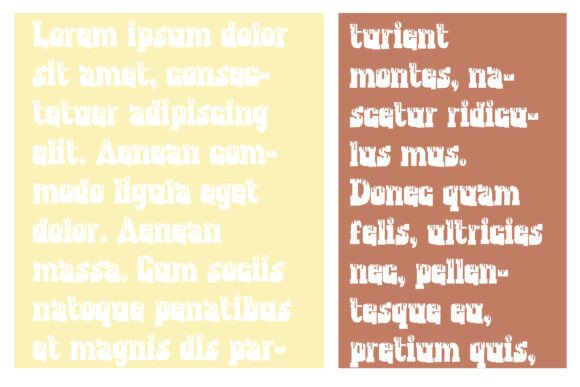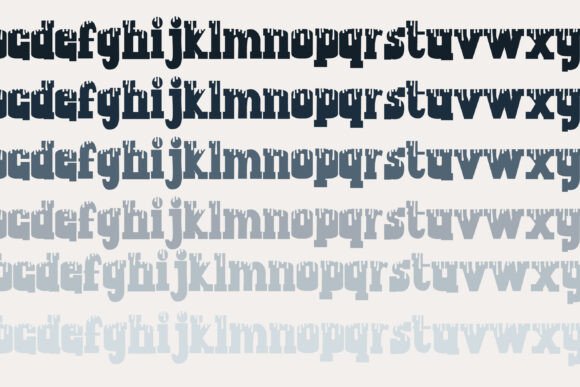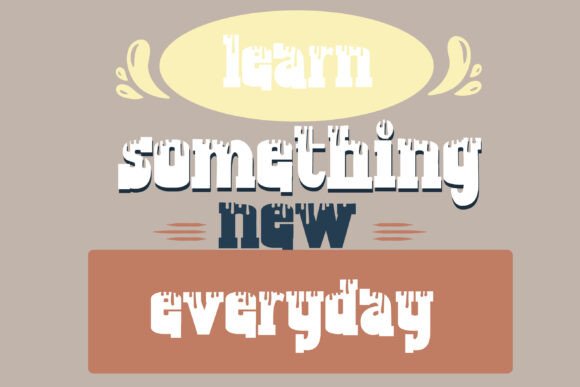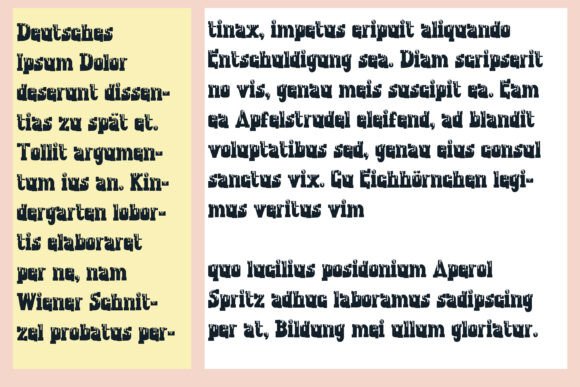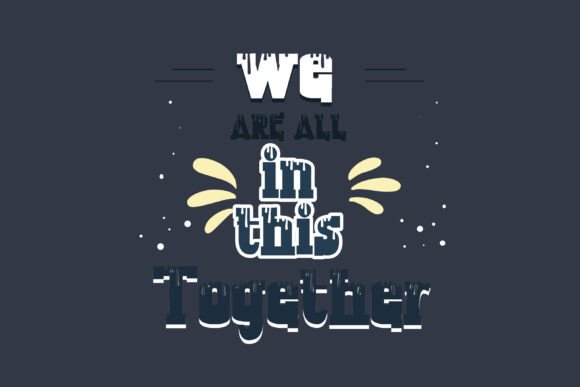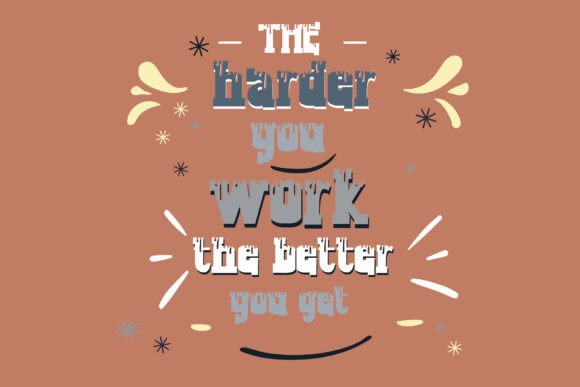
Introduction to Murder More Font
As I sat at my desk, staring at a blank canvas, I couldn’t help but feel a spark of creativity ignite within me. I was working on a new project, and I knew exactly what I needed to bring it to life – the perfect font. That’s when I stumbled upon Murder More Font, a hand-crafted serif that’s dripping in blood. I was immediately drawn to its unique, high-quality design and the countless possibilities it offered for my creative project.
With Murder More Font, designers have a valuable resource at their fingertips. This free download is perfect for adding a touch of elegance and sophistication to any design. Whether you’re working on a wedding invitation, a greeting card, or a logo, Murder More Font is sure to make your project stand out. Plus, its transparent background makes it easy to customize and integrate into any design.
Key Features of Murder More Font
- High-quality design with a unique, edgy aesthetic, perfect for creative projects.
- Includes a transparent background, allowing for seamless integration with various design elements.
- Features a bold, eye-catching font with a large character set, ideal for making a statement in any design project.
- Perfect for adding a touch of sophistication and mystery to your design, from posters and flyers to digital graphics and more.
Honest Review: Murder More Font
I recently had the chance to work with the Murder More Font, and I must say it’s been a game-changer for my creative projects. As a designer, I’m always on the lookout for high-quality fonts that can elevate my designs and make them stand out.
- What works well: ✨ The font is incredibly versatile and can be used for a wide range of creative projects, from posters to social media graphics. The transparent background option is also a huge plus, making it easy to customize and combine with other design elements.
- What works well: ✨ The font is incredibly detailed and has a unique, edgy feel that’s perfect for projects that need a bit of attitude.
However, I did encounter a few limitations. ⚠️ The font can be a bit too bold at times, which can be overwhelming for some designs. Additionally, the free download option is limited to a specific size, which may not be suitable for larger-scale projects.
Overall, I’m really impressed with the Murder More Font. It’s a fantastic design resource that’s perfect for anyone looking to add some edge to their creative projects. With its high-quality design and transparent background option, it’s definitely worth checking out.
To get the most out of the Murder More Font, use it in conjunction with other design resources, such as graphics and images. This will help you create a cohesive and visually appealing design. Additionally, experiment with different font sizes and styles to add depth and interest to your design.
The Murder More Font is ideal for use in a variety of creative projects, including:
Graphic design and digital art
Marketing materials and advertising
Branding and logo design